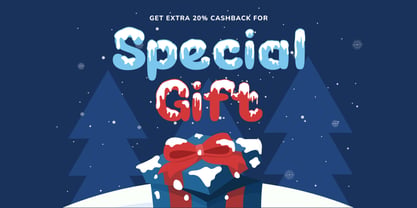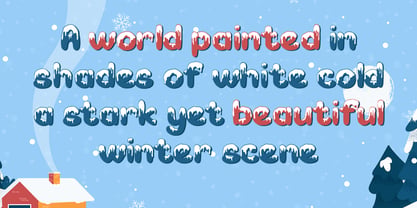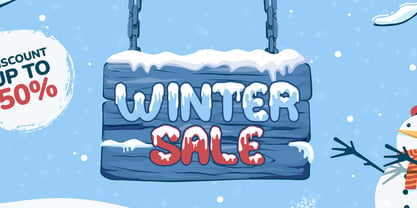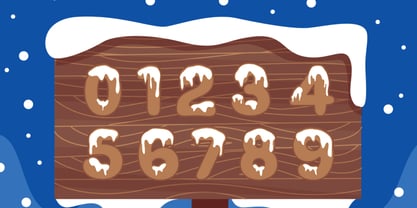
Icy Bubbles
by Vadova Std
The Icy Bubbles Font Family was designed by and published by Vadova Std. Icy Bubbles contains 1 styles. More about this family
Elevate your designs with Ice Bubbles Creative Font a font perfect for adding elegance and style to your projects. Whether it’s for quotes, logotypes, magazine headers, or more, this versatile typeface ensures your text stands out beautifully.